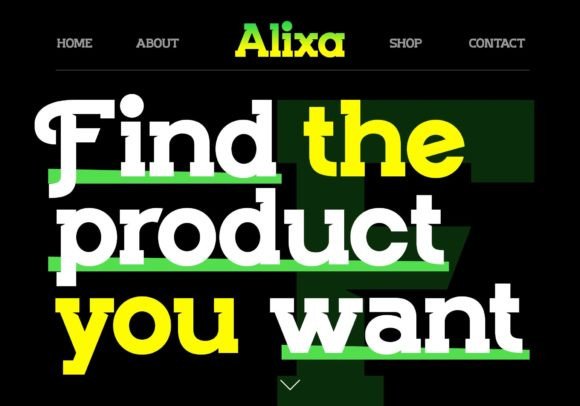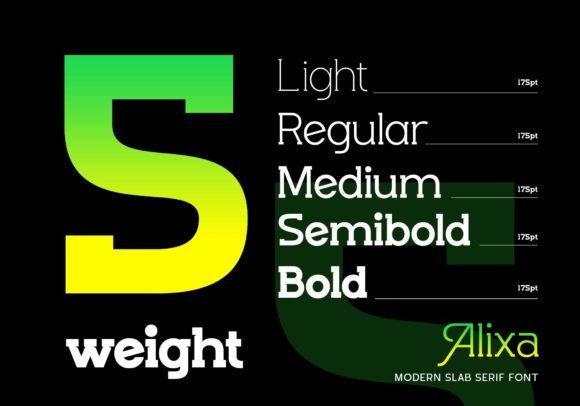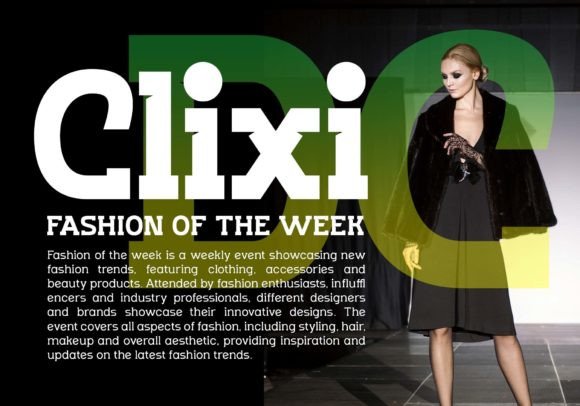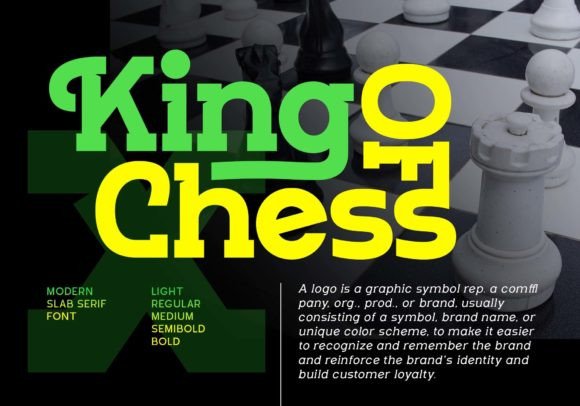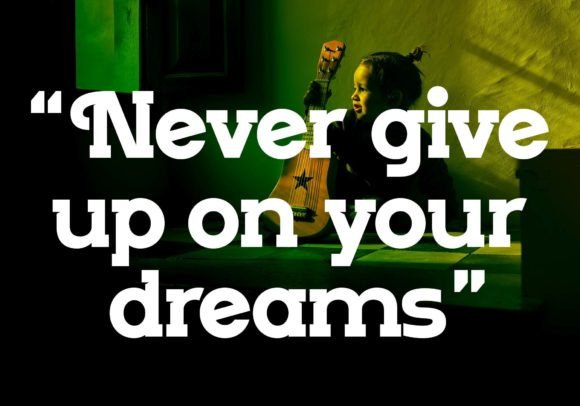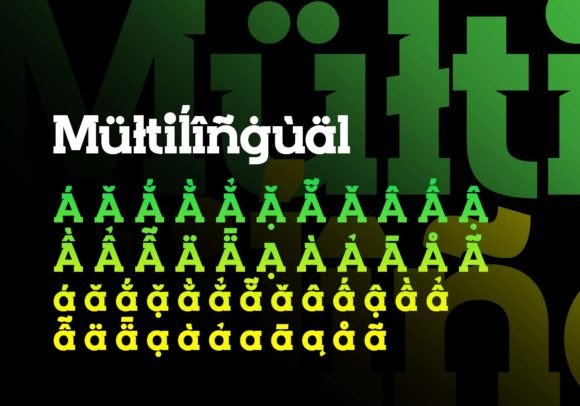
Introduction to Alixa Font
Alixa is a slab serif font that is both attractive and fashionable, designed to bring a stylish edge to your projects.
With bold lines and sharp angles, each letter exudes a modern and contemporary vibe thatโs perfect for logos, headlines, and other design elements This font is sure to make a statement and capture your audienceโs attention.